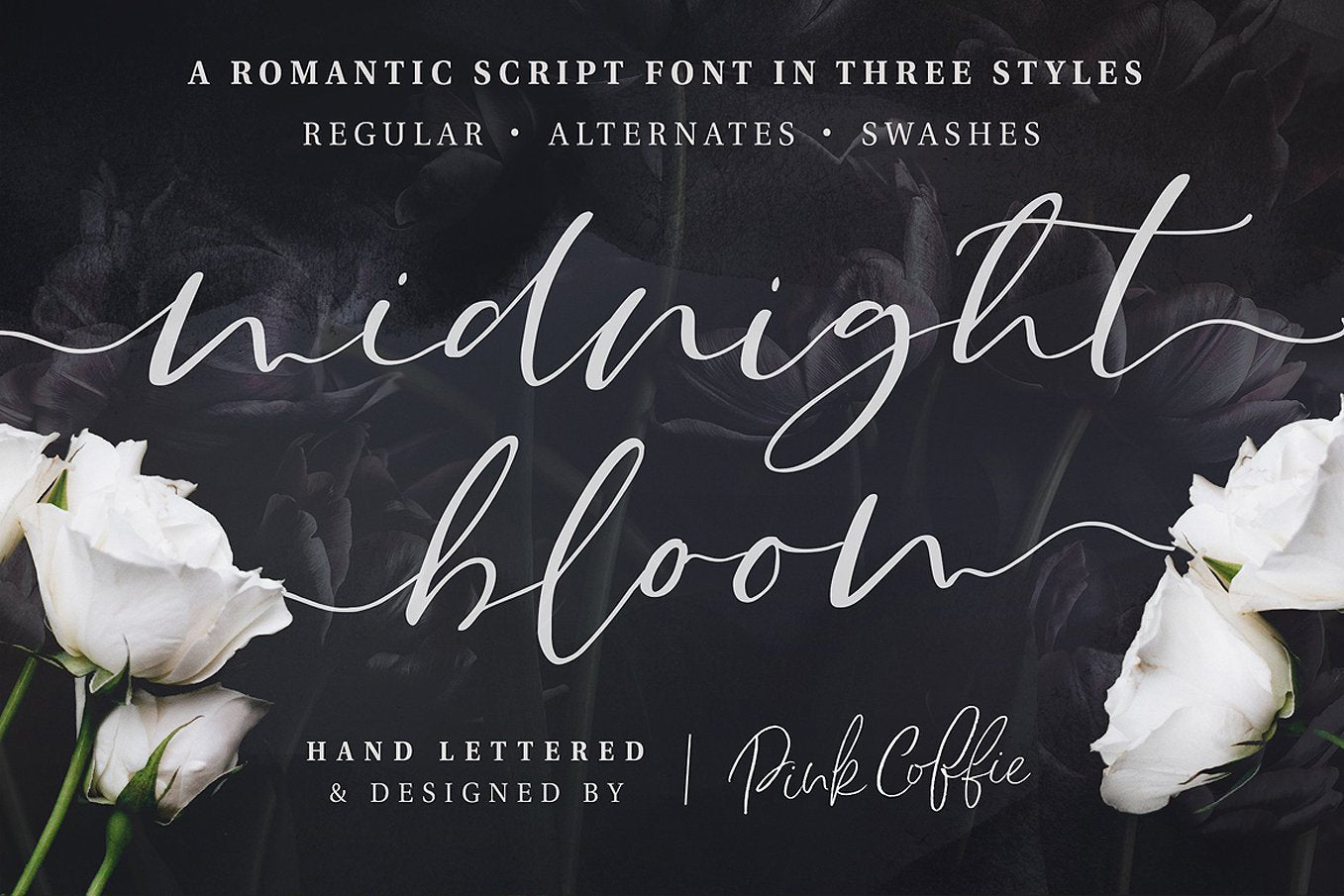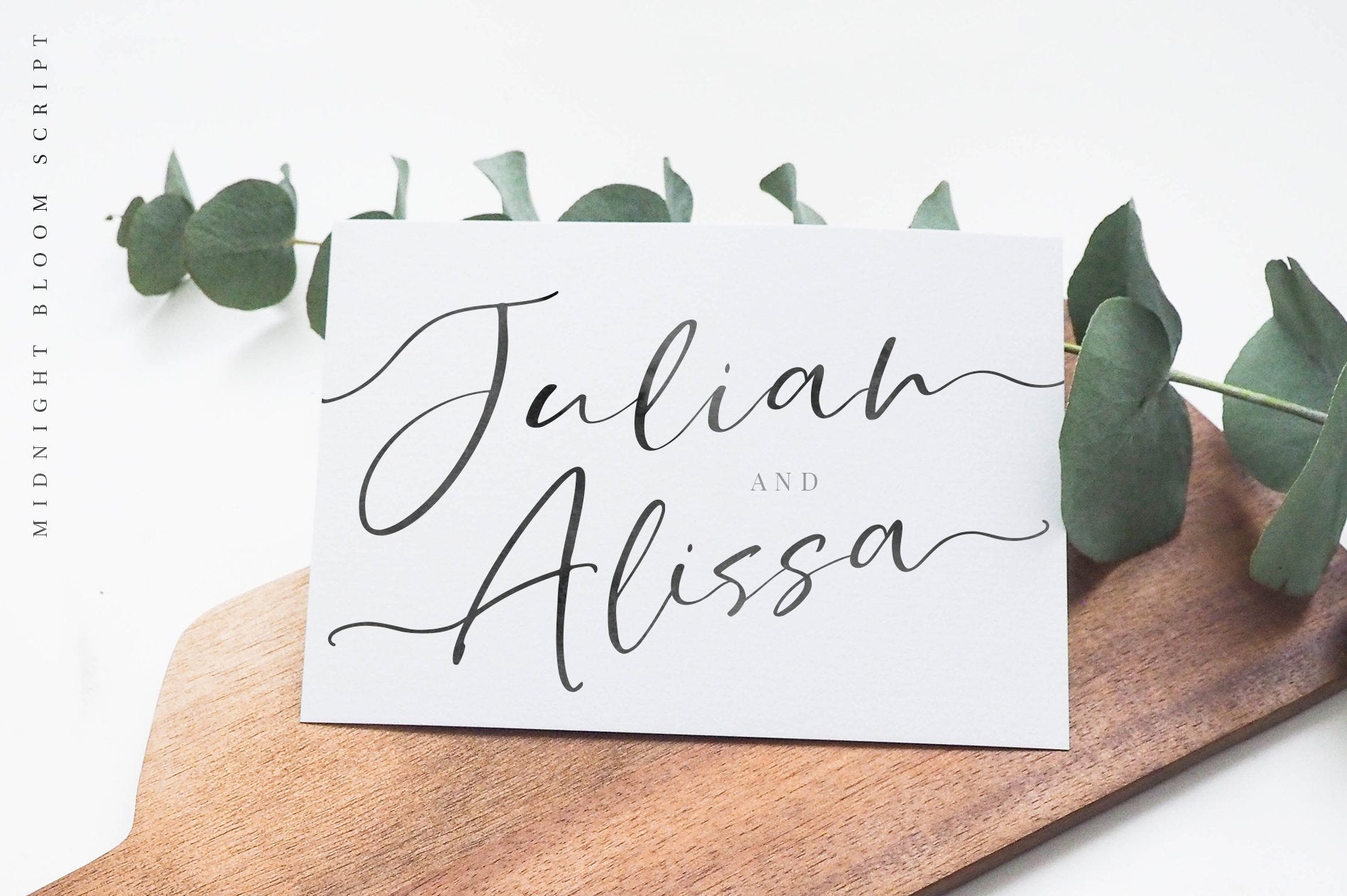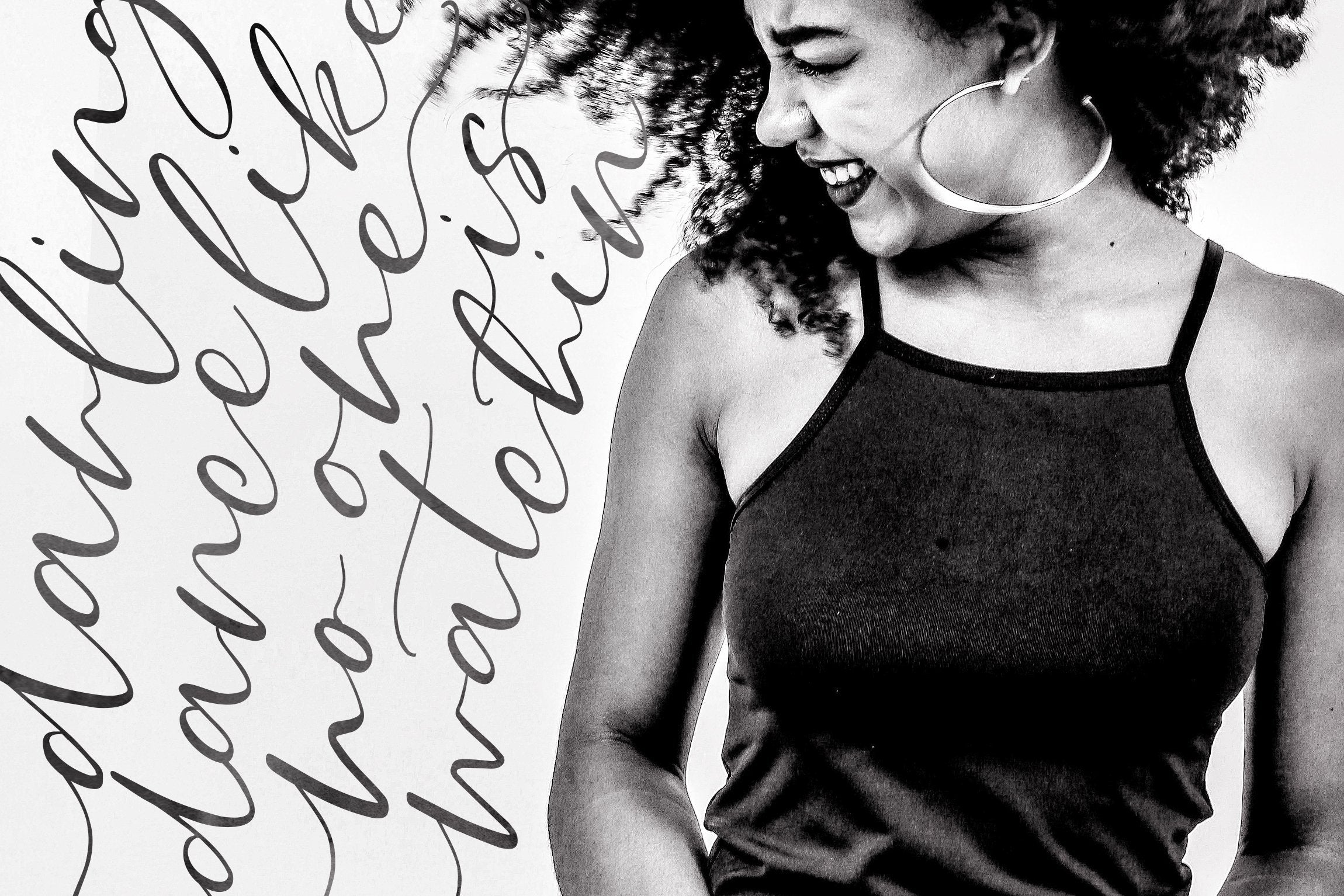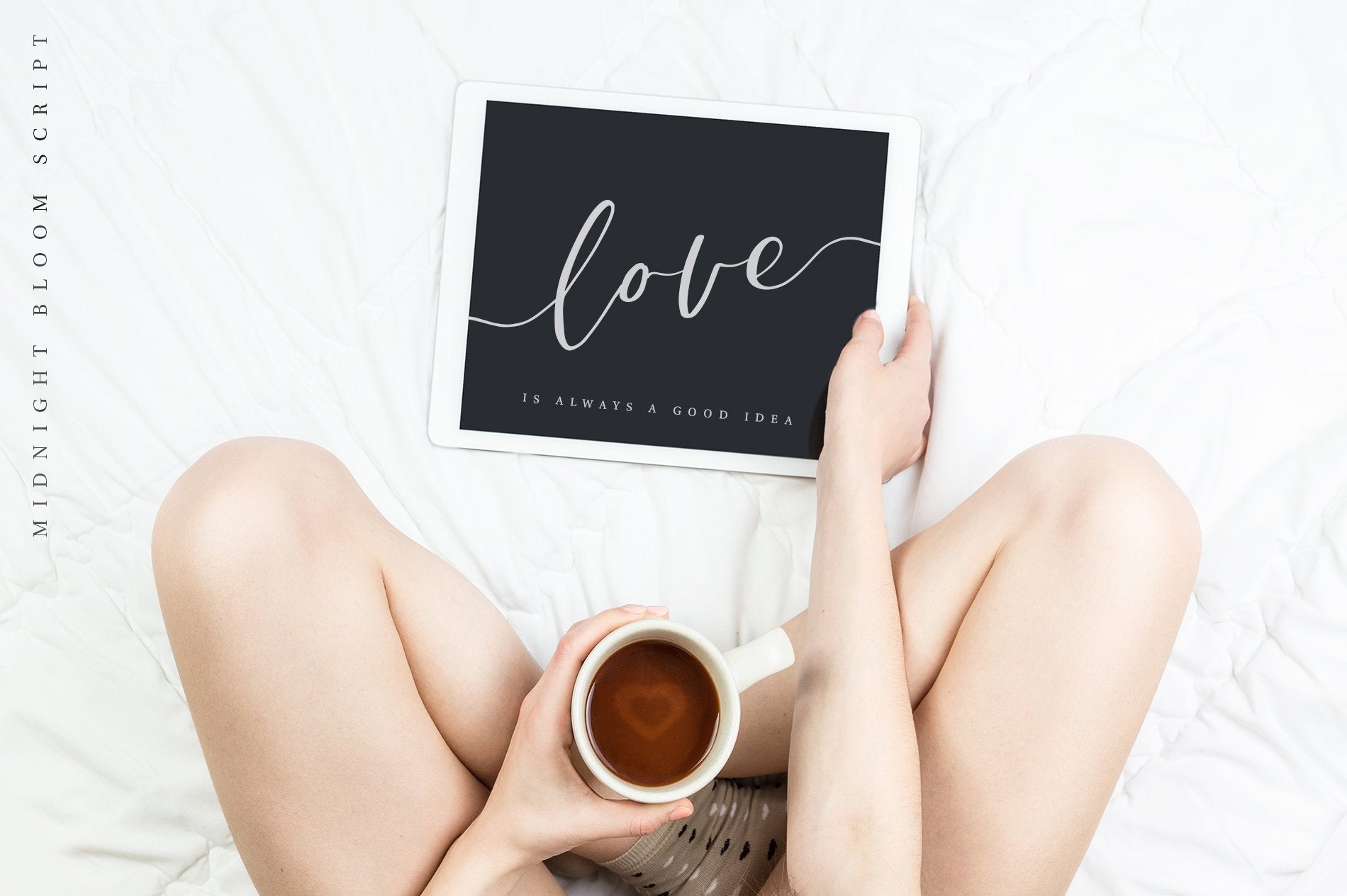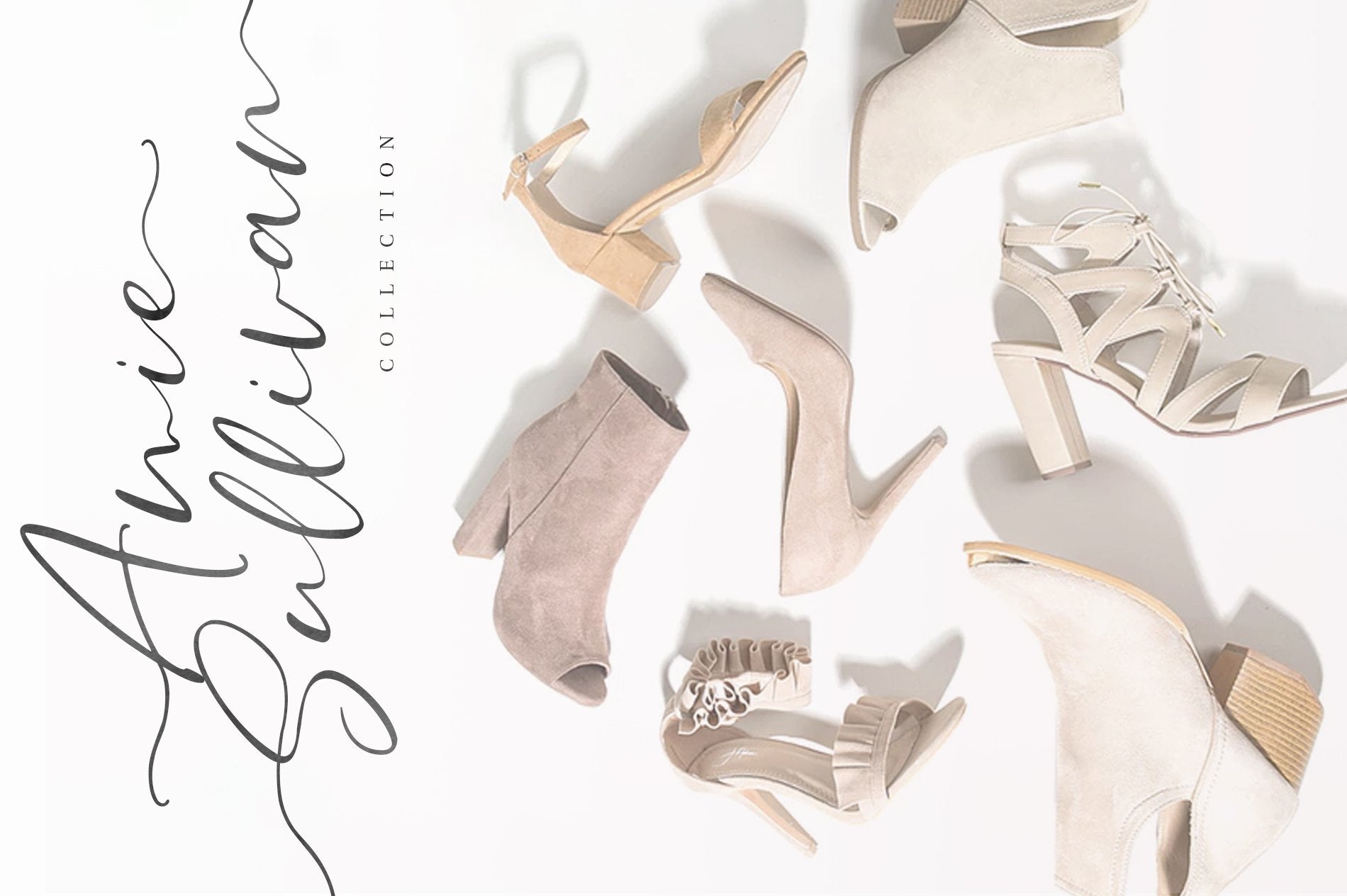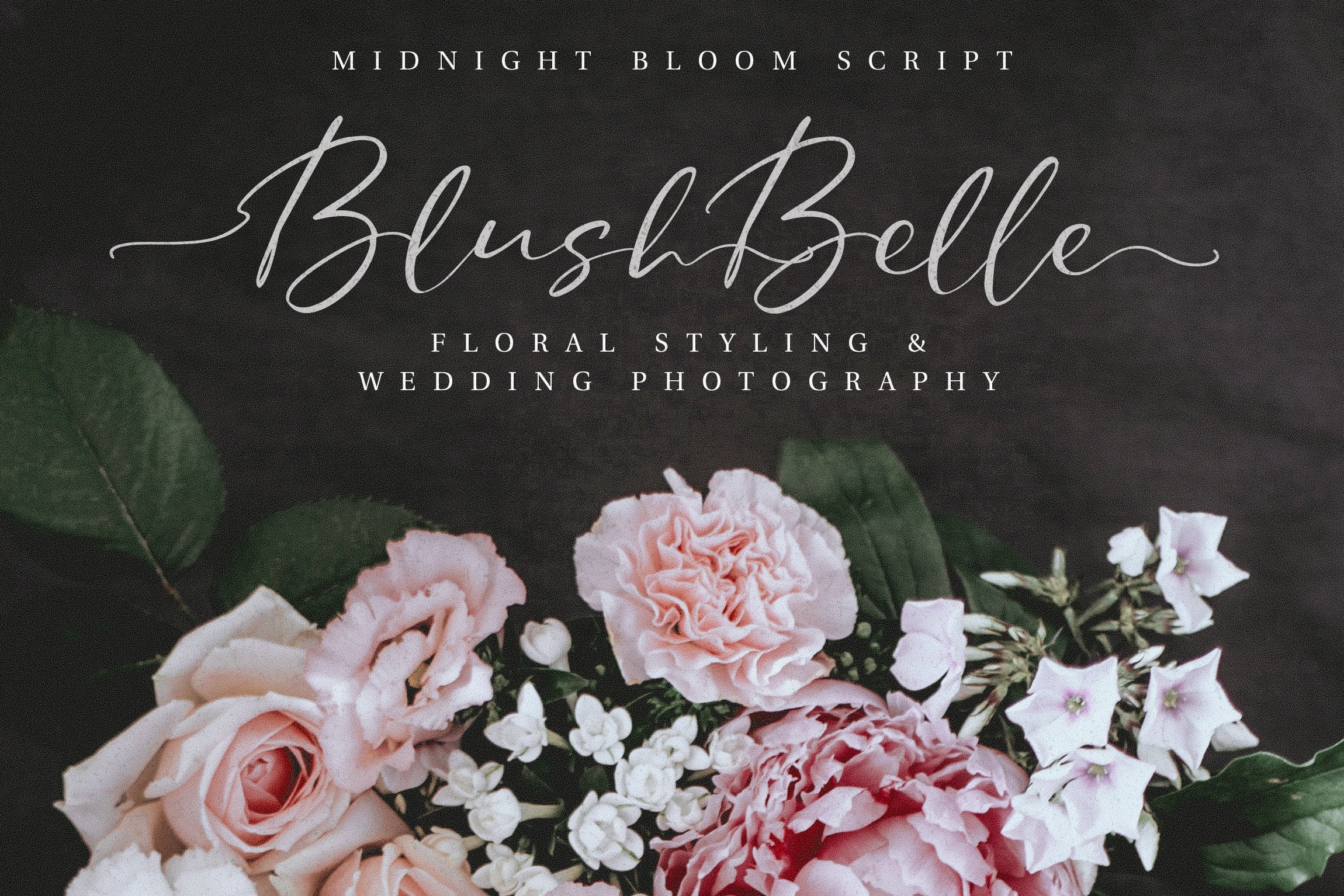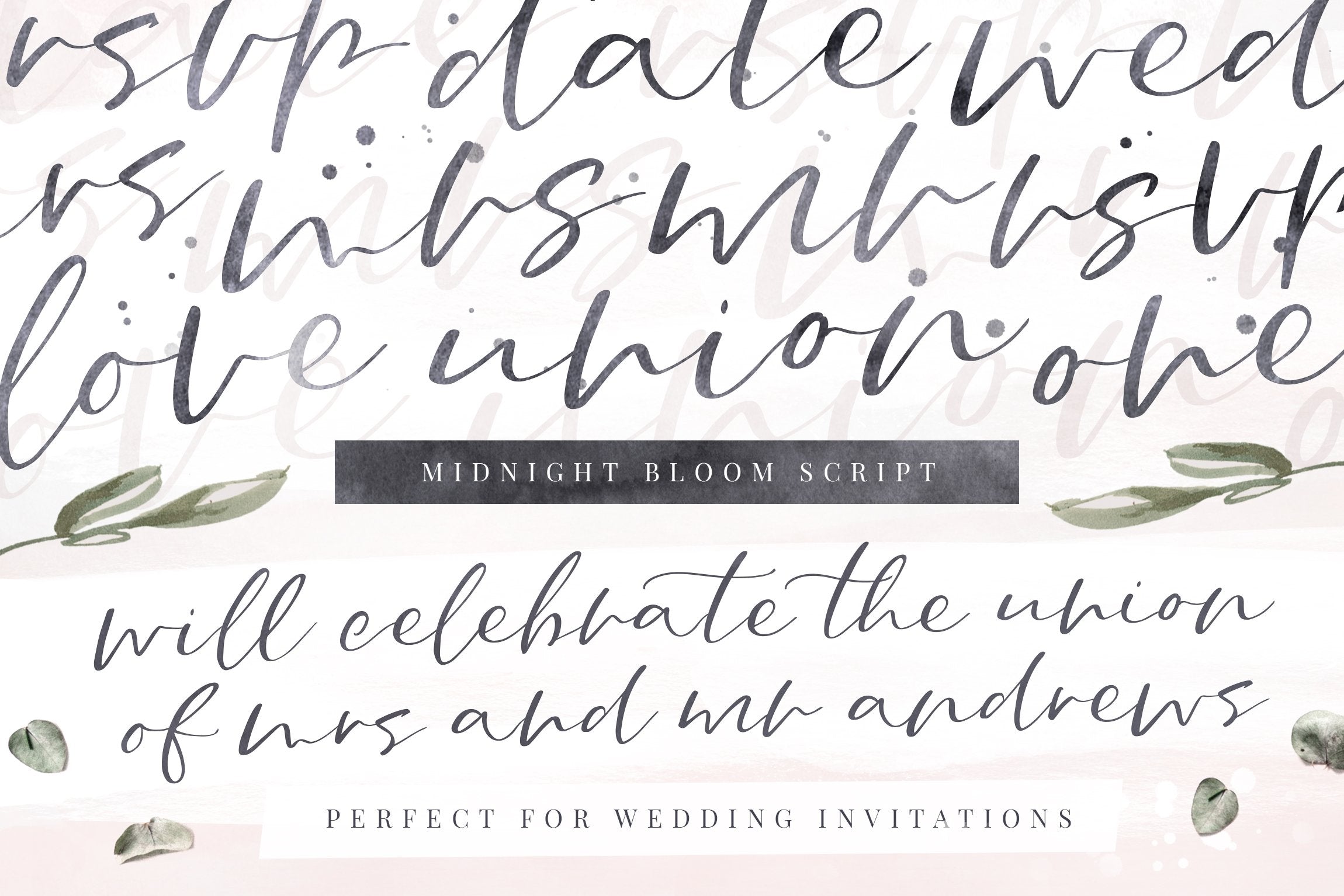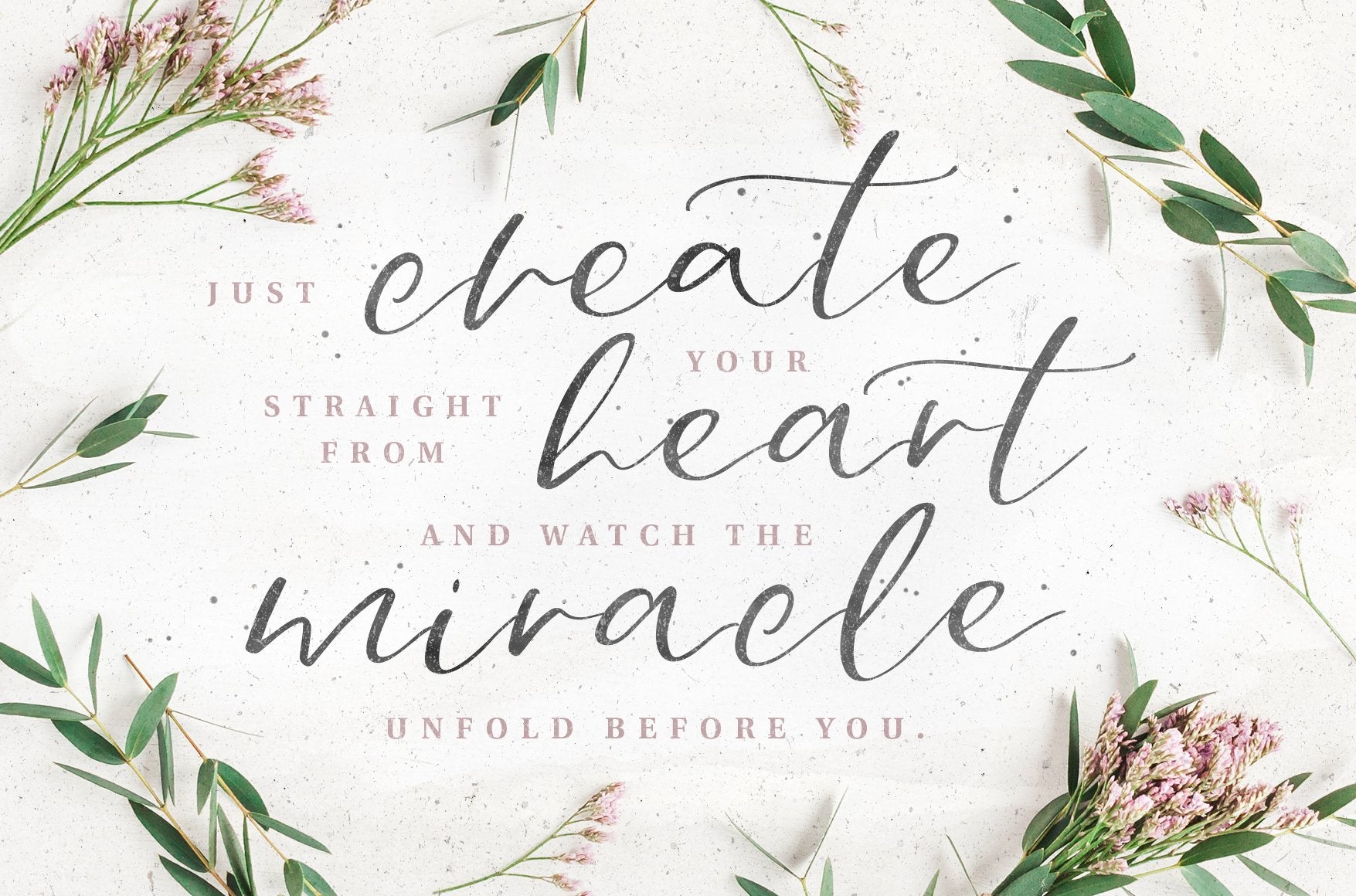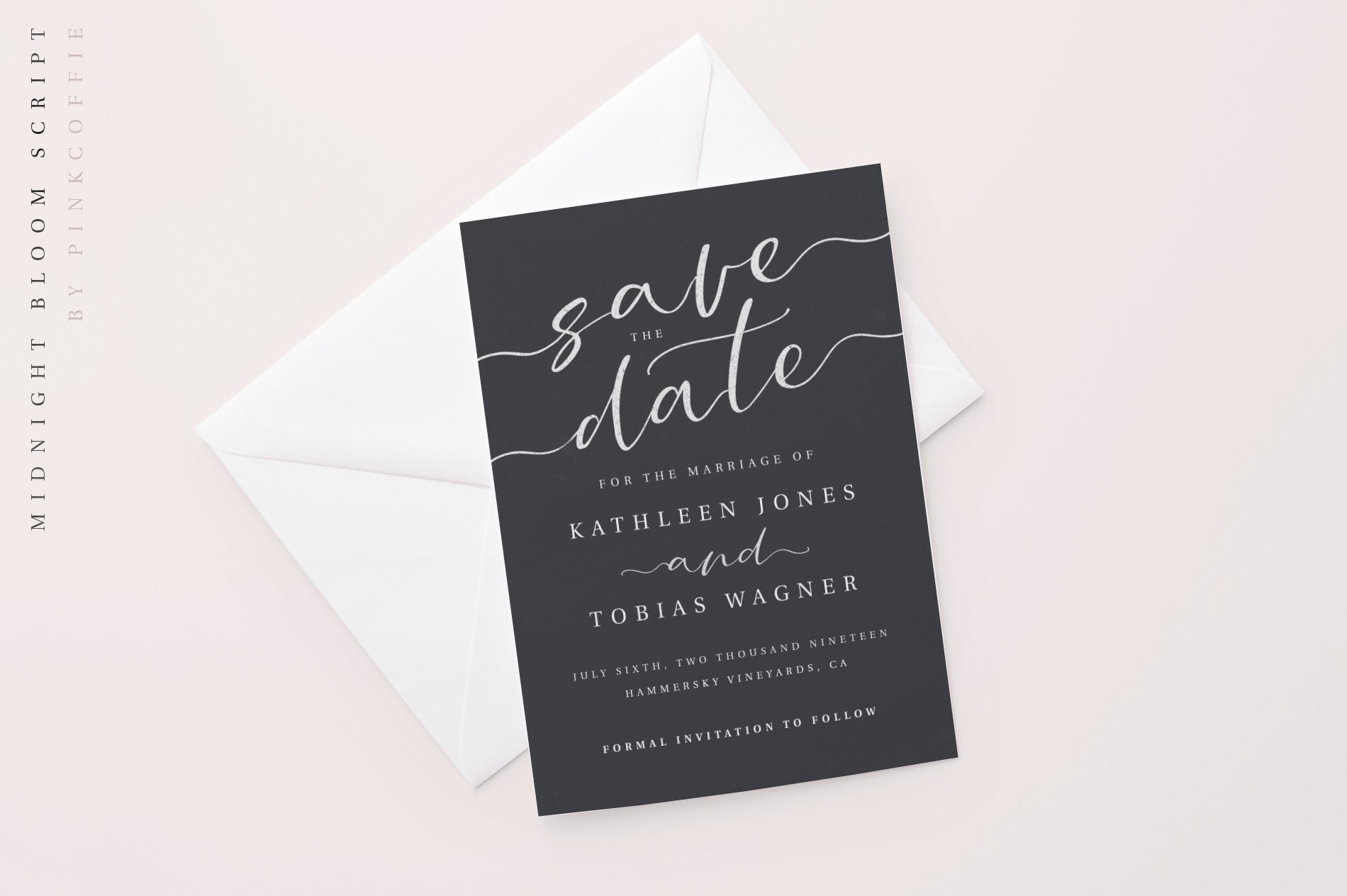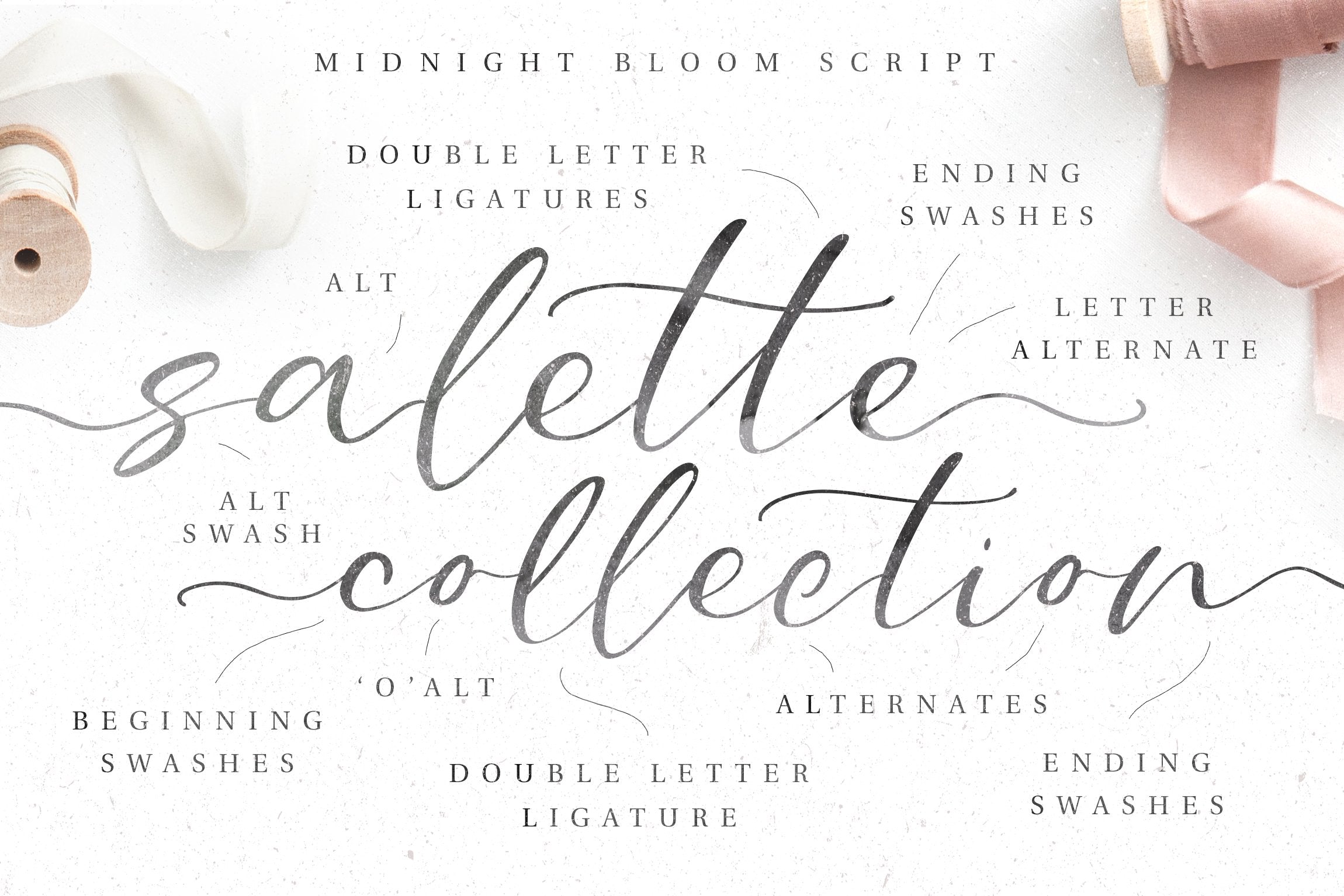
Say hello to Midnight Bloom - a sweet & romantic hand lettered script font featuring two lowercase letter sets, double letter ligatures for a natural, handwritten look, premade lowercase swashes, and 18 feminine bonus logo templates to play with.
- Midnight Bloom - the main font containing the regular uppercase and lowercase characters, ligatures, alternates and lowercase swashes.
- Midnight Bloom - Left Swashes
- Midnight Bloom - Right Swashes
- Midnight Bloom Swashes ( to attach manually )